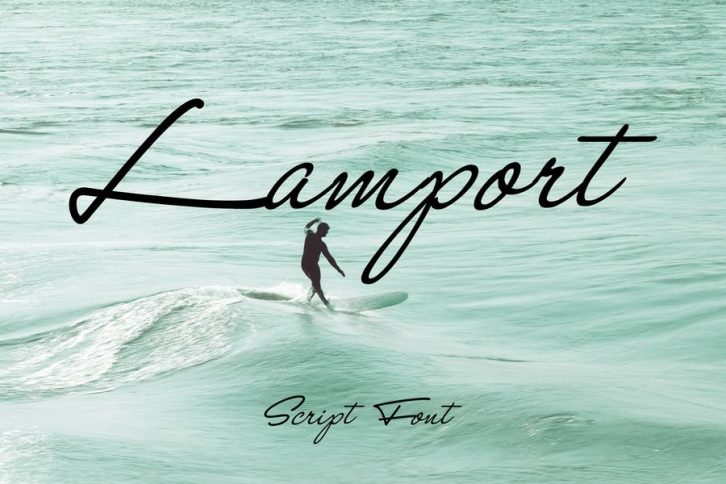
Lamport Font Download
Introducing our new product Lamport Font - Modern Font ** Lamport Font** - Modern Font is a bold and authentic display font. The font is suitable for any branding project like logo, t-shirt printing, esport, and many more. outstanding in a wide range of contexts.